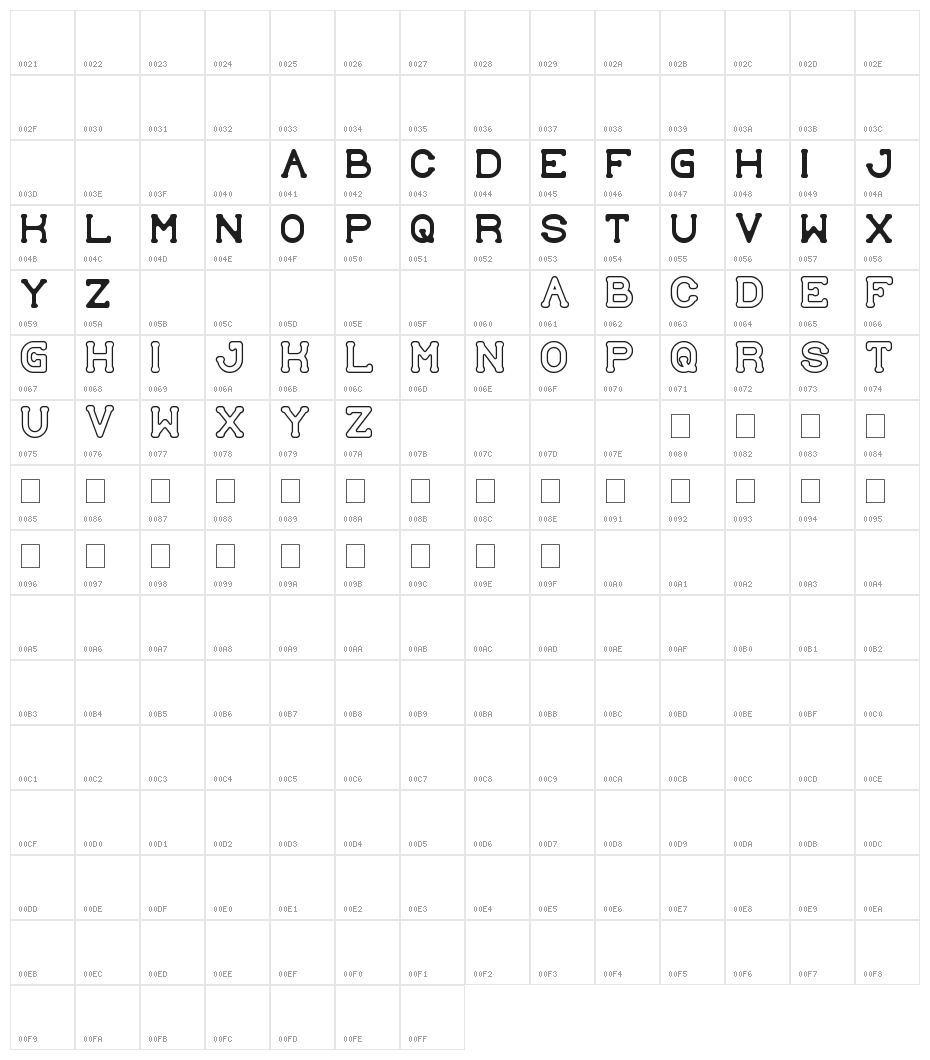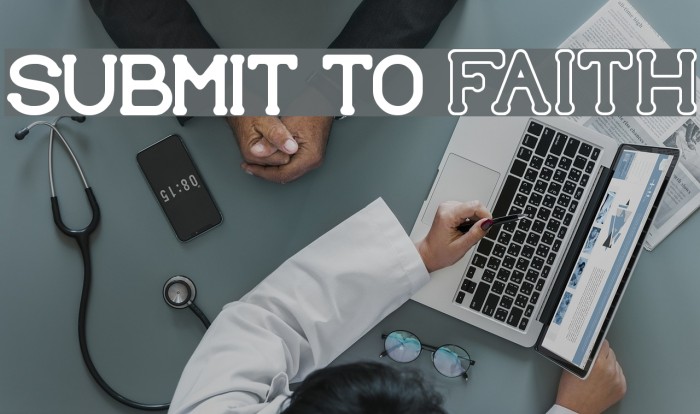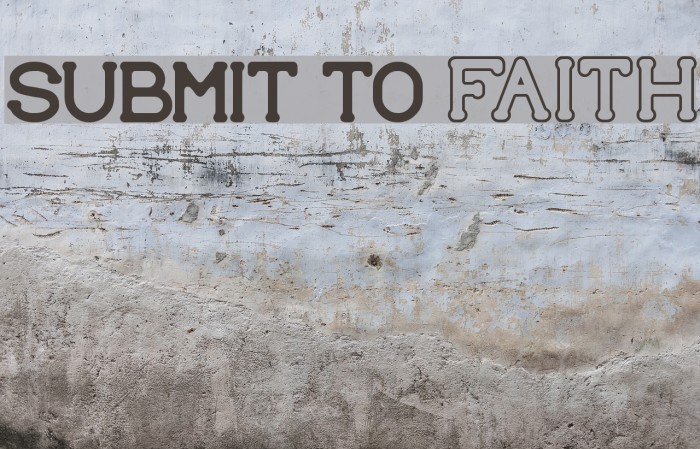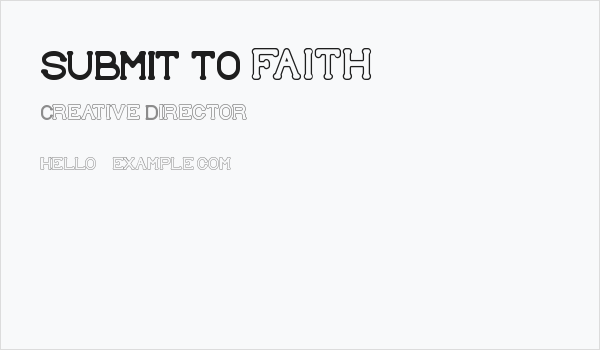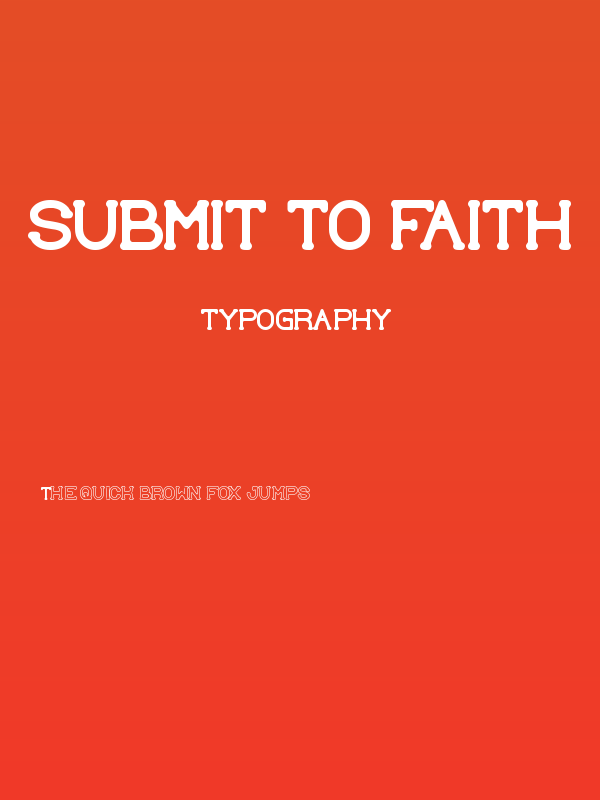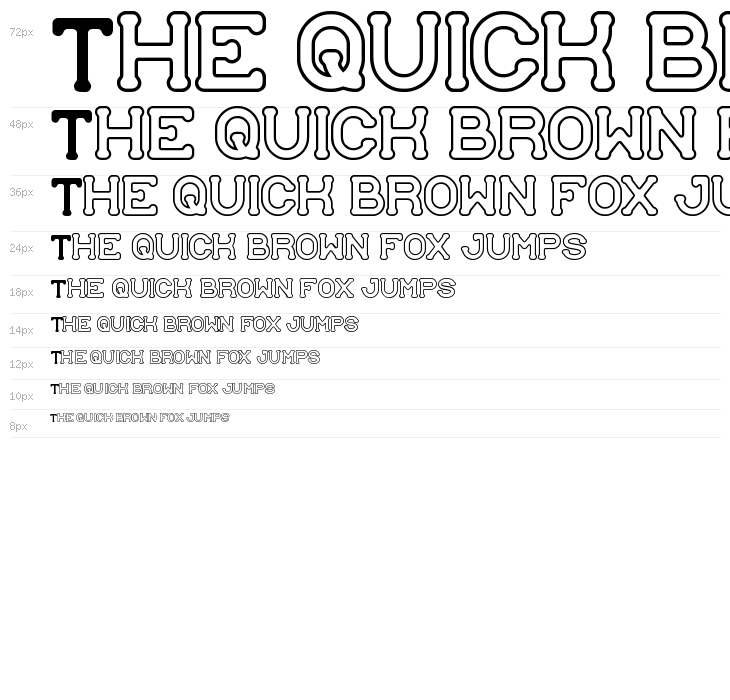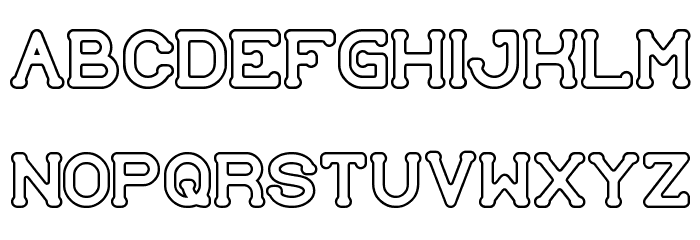
SUBMIT TO faith Font
SUBMIT TO faith Description
This font features a bold, rounded style with a distinct outline that gives it a playful yet structured appearance. The uppercase letters are uniform in height and width, creating a cohesive look. The rounded edges soften the overall feel, making it approachable and friendly. The outline adds a layer of depth, enhancing its visibility and making it stand out in various applications. This font is versatile, suitable for both digital and print media, and can be used effectively in designs that require a bold statement.
Overall StylePlayful, Modern
Proposed ProjectsIdeal for branding, posters, children's books, and any design that requires a bold, eye-catching font.